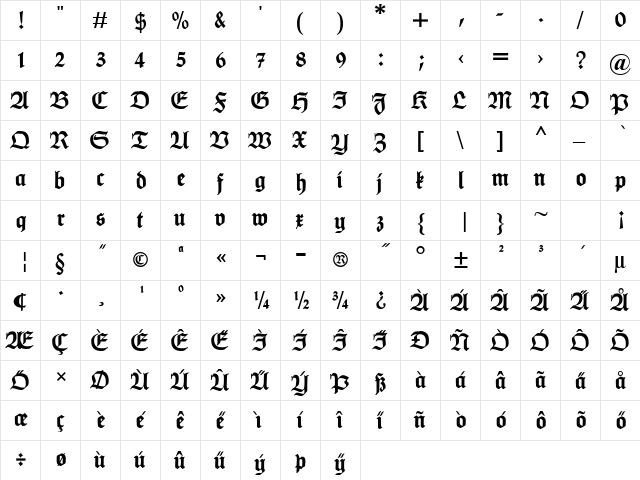
HumboldtFrakturUNZ1A Regular
| Foundry | Typographer Mediengestaltung |
| Designer | Hiero Rhode |
Design Context for HumboldtFrakturUNZ1A Typeface
HumboldtFrakturUNZ1A channels the dramatic heritage of Fraktur and Gothic scripts, bringing a sense of historical gravitas to any design. Its bold stroke weight gives it real presence on the page.
A natural fit for music packaging, gothic editorial design, and any project that needs historical weight.
Font Pairing: Pair with a clean neutral sans-serif for body copy to let HumboldtFrakturUNZ1A's character lead without overwhelming the composition.
Pro Tip: Reserve HumboldtFrakturUNZ1A for display and logo use — pair it with a clean sans-serif for body copy to prevent the composition from feeling oppressive.